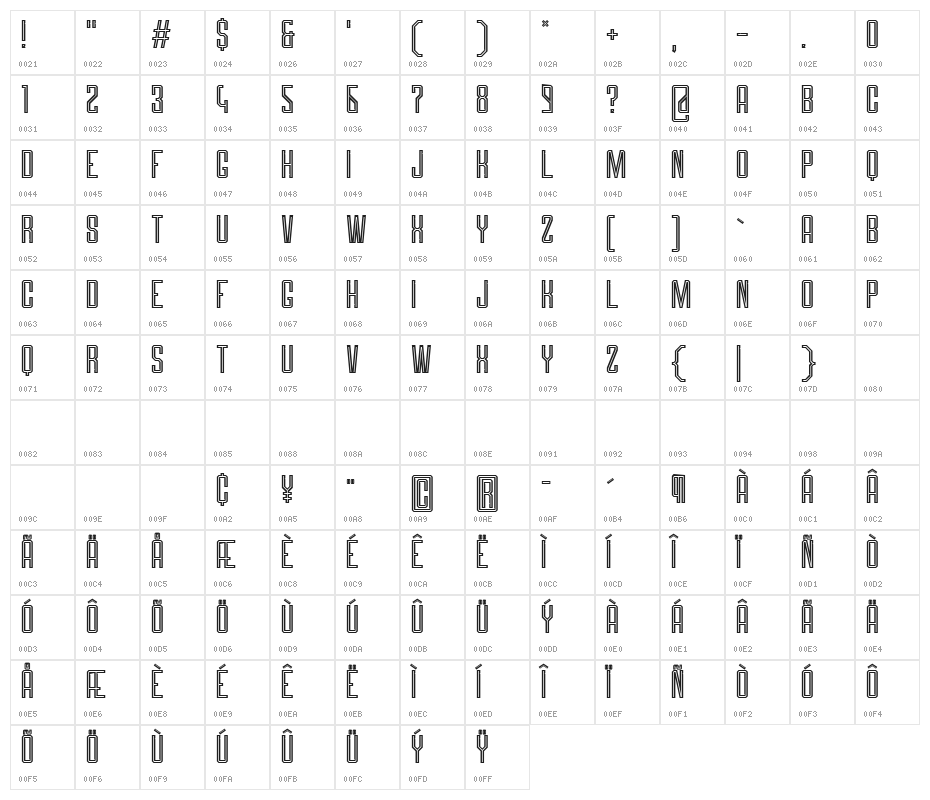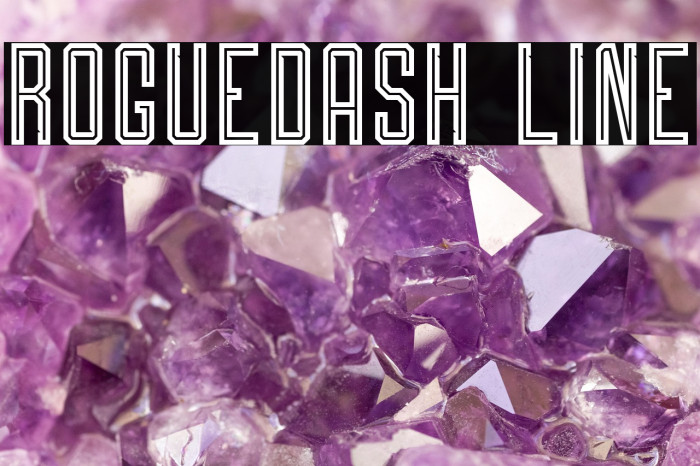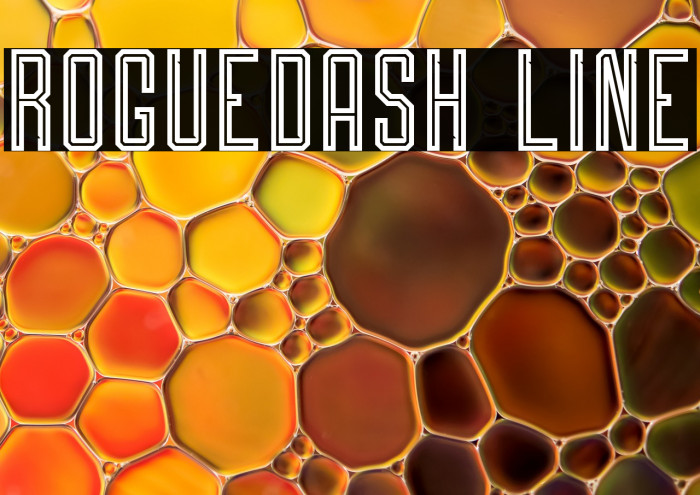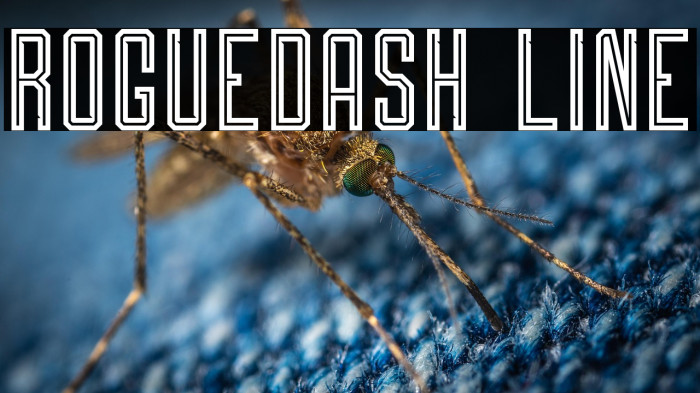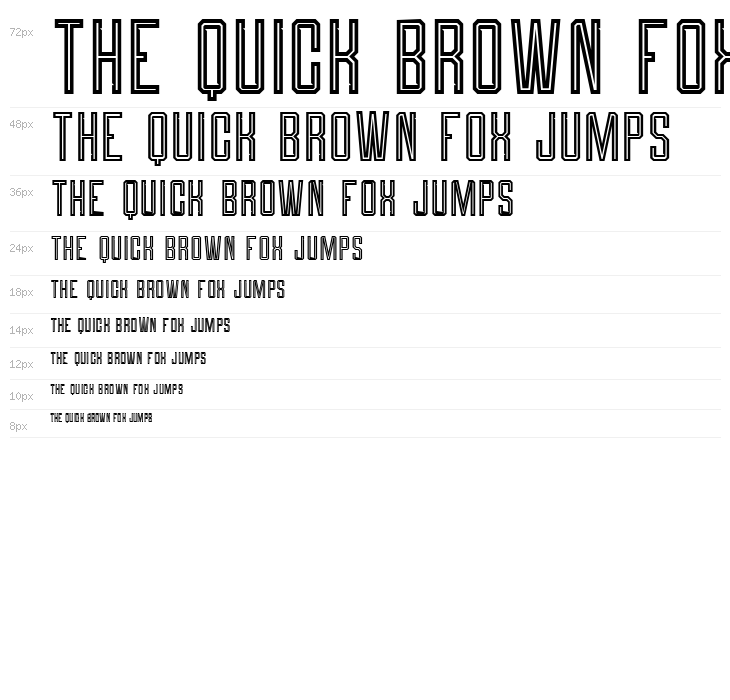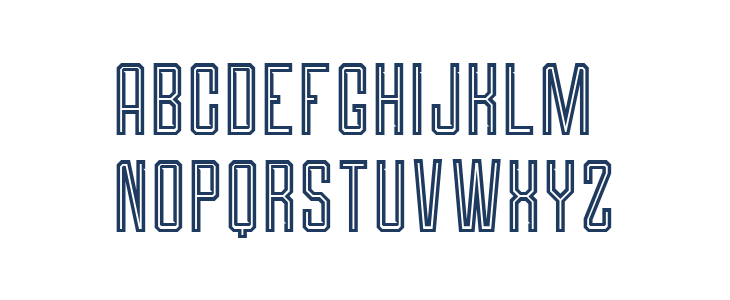
Roguedash Line Font
Roguedash Line Description
This font features a bold, geometric design with a distinct outline style. Each character is crafted with precision, showcasing a modern and futuristic aesthetic. The uppercase letters are tall and narrow, while the lowercase letters maintain a consistent height, providing a uniform appearance. Numbers and special characters are designed to match the overall style, ensuring a cohesive look across all text. The font's unique outline effect creates a striking visual impact, making it ideal for attention-grabbing designs.
| Proposed Projects | Ideal for branding, posters, headlines, and digital artwork where a modern and impactful look is desired. |